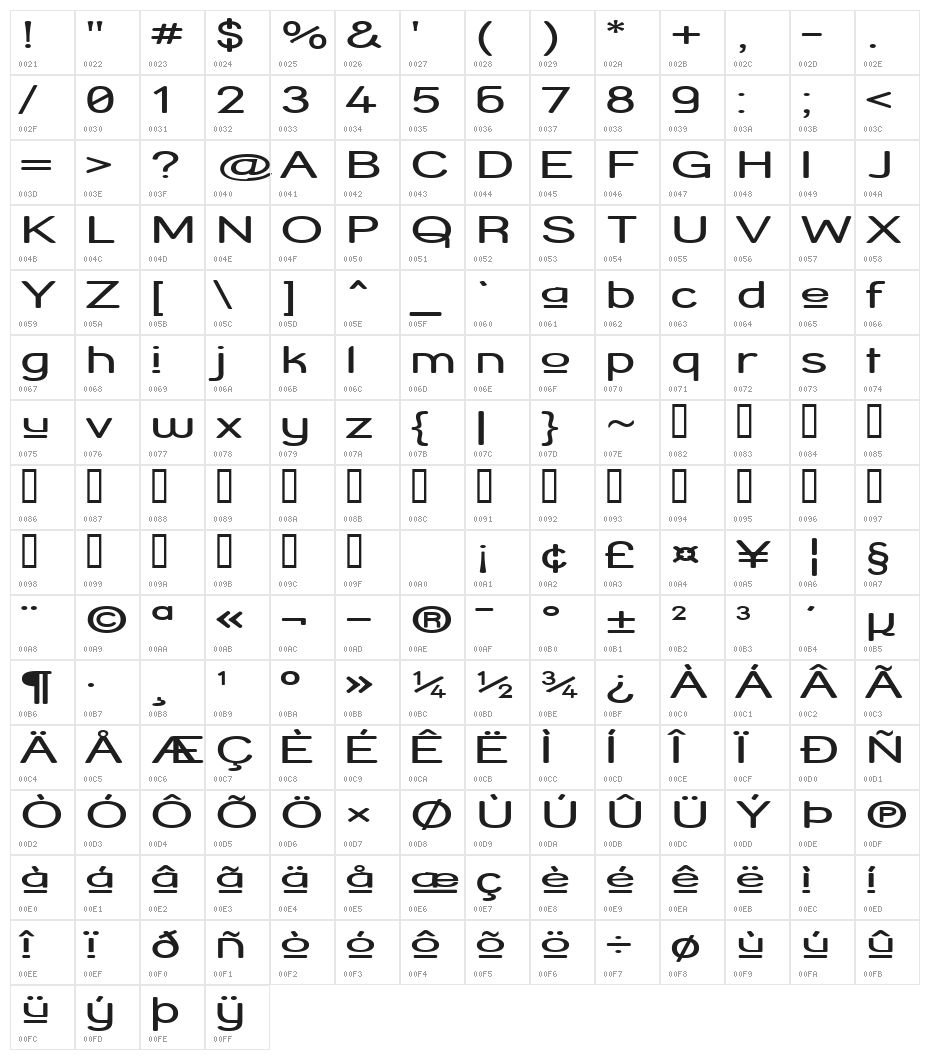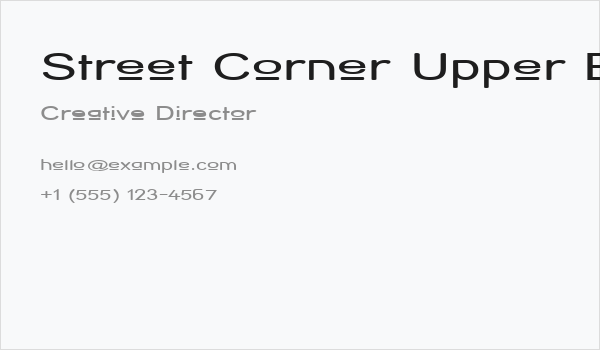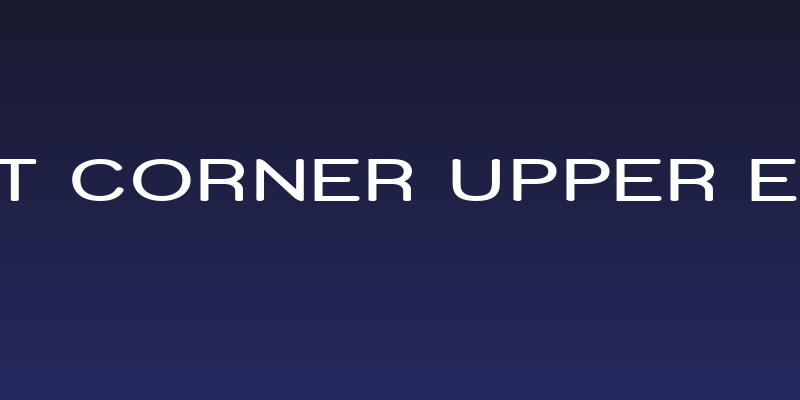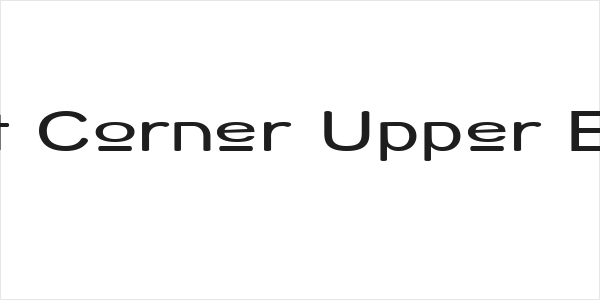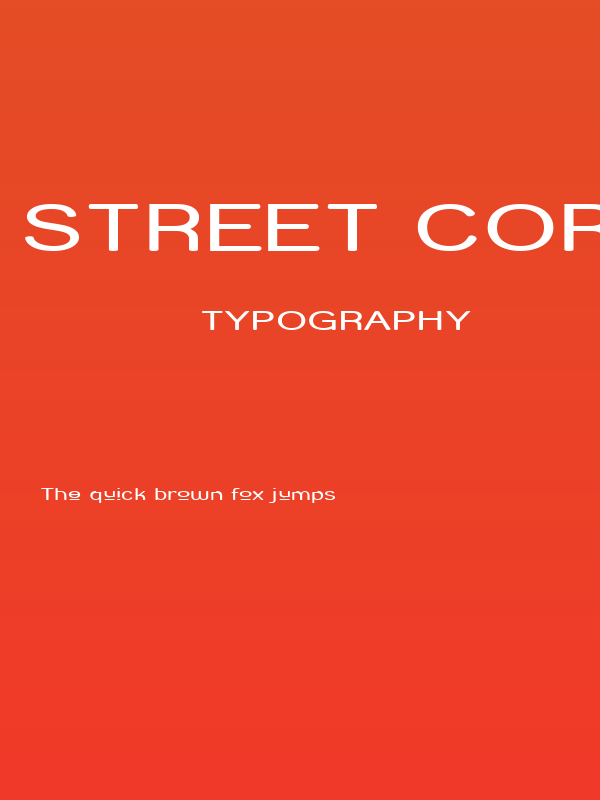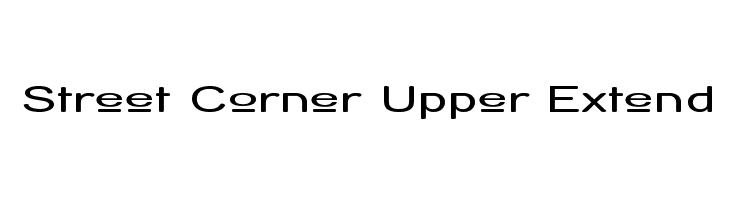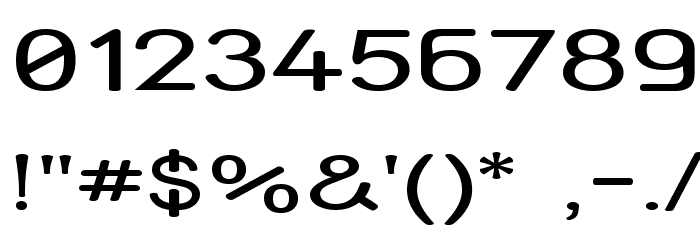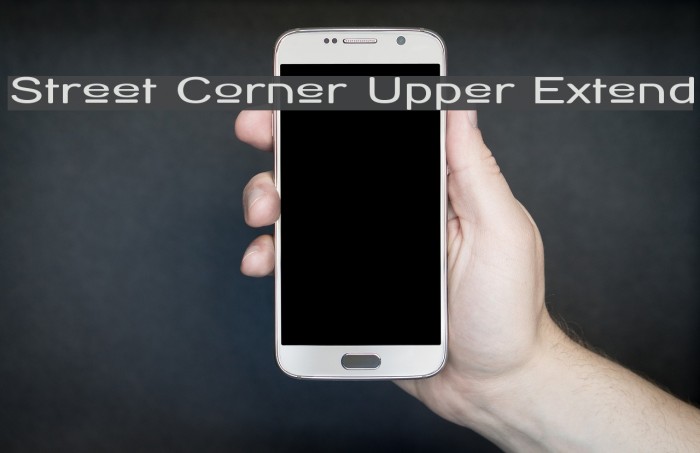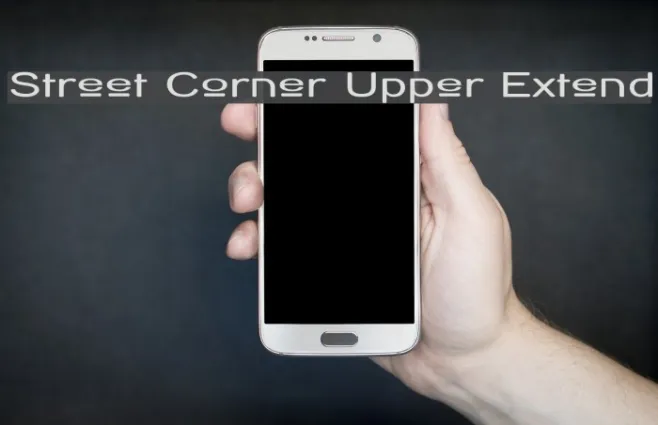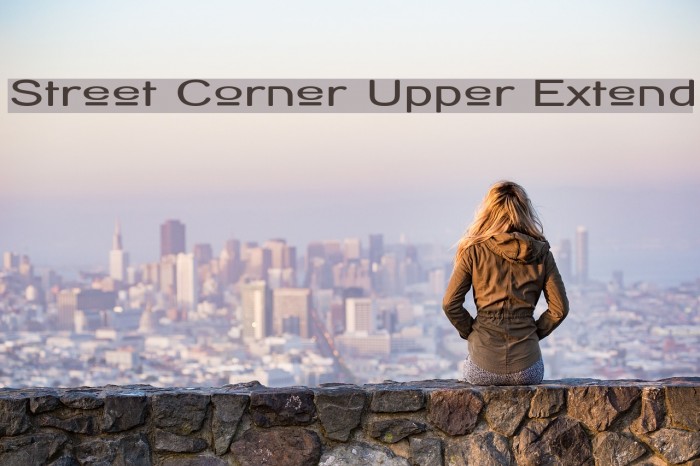
Street Corner Upper Extend Font
Street Corner Upper Extend Description
This font features a clean and modern design with rounded edges and a uniform stroke width, giving it a sleek and contemporary appearance. The characters are well-proportioned, with a geometric influence that enhances readability. Uppercase letters are bold and assertive, while lowercase letters maintain a friendly and approachable feel. Numbers are clear and distinct, making them suitable for various applications. The special characters are crafted with precision, ensuring consistency across all glyphs.